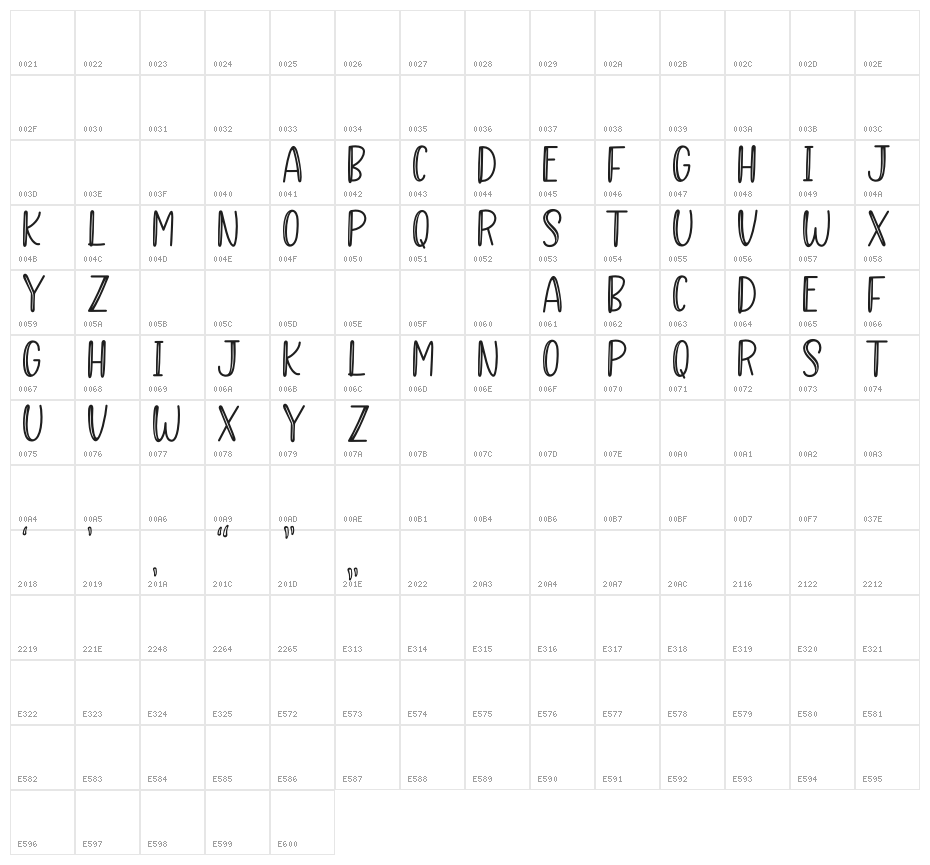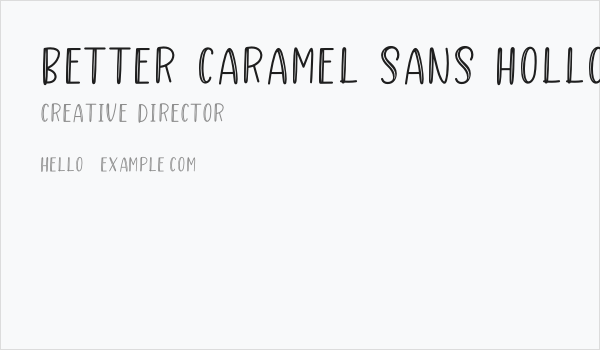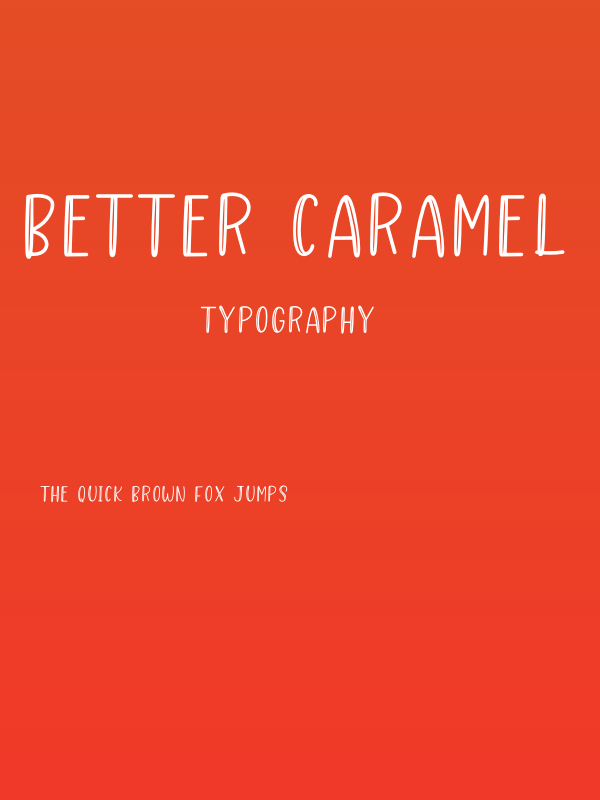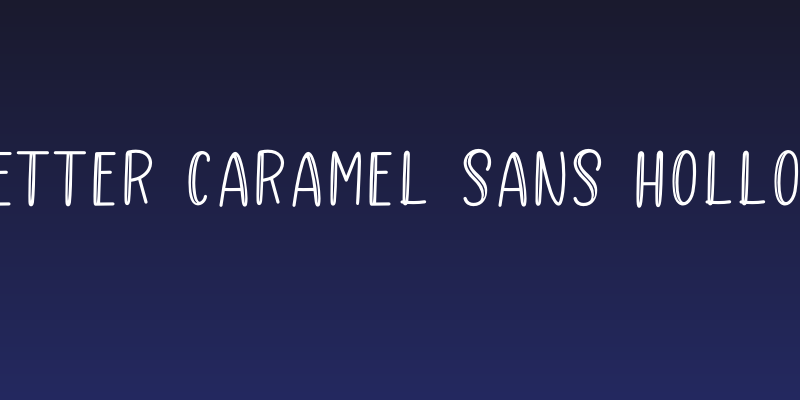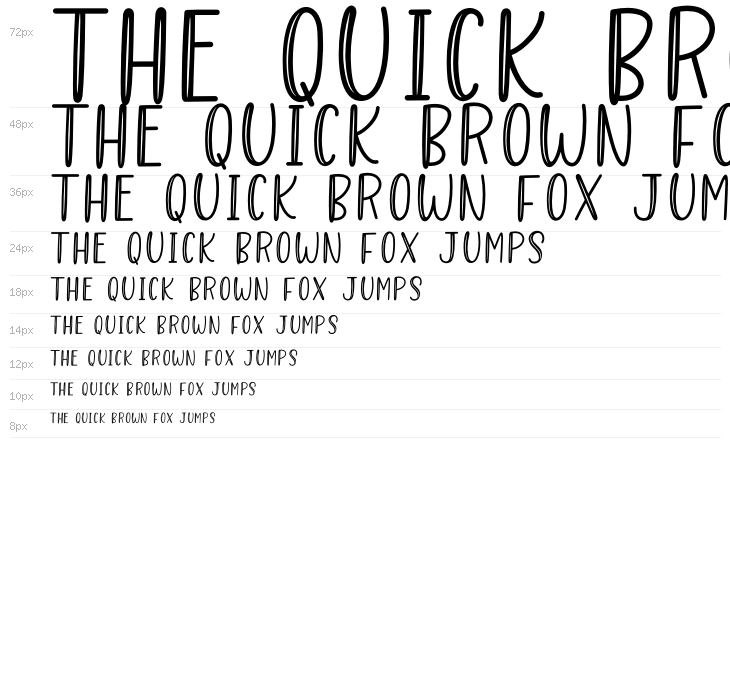
Better Caramel Sans Hollow Font
Better Caramel Sans Hollow Description
This font features a playful and modern sans-serif style with hollow interiors, giving it a unique and airy appearance. The characters are tall and slightly narrow, with rounded edges that add a friendly and approachable feel. The uppercase and lowercase letters maintain a consistent style, with smooth curves and clean lines. The numbers and special characters follow the same design principles, ensuring a cohesive look across all text. This font's hollow design makes it stand out, offering a creative twist on traditional sans-serif fonts.